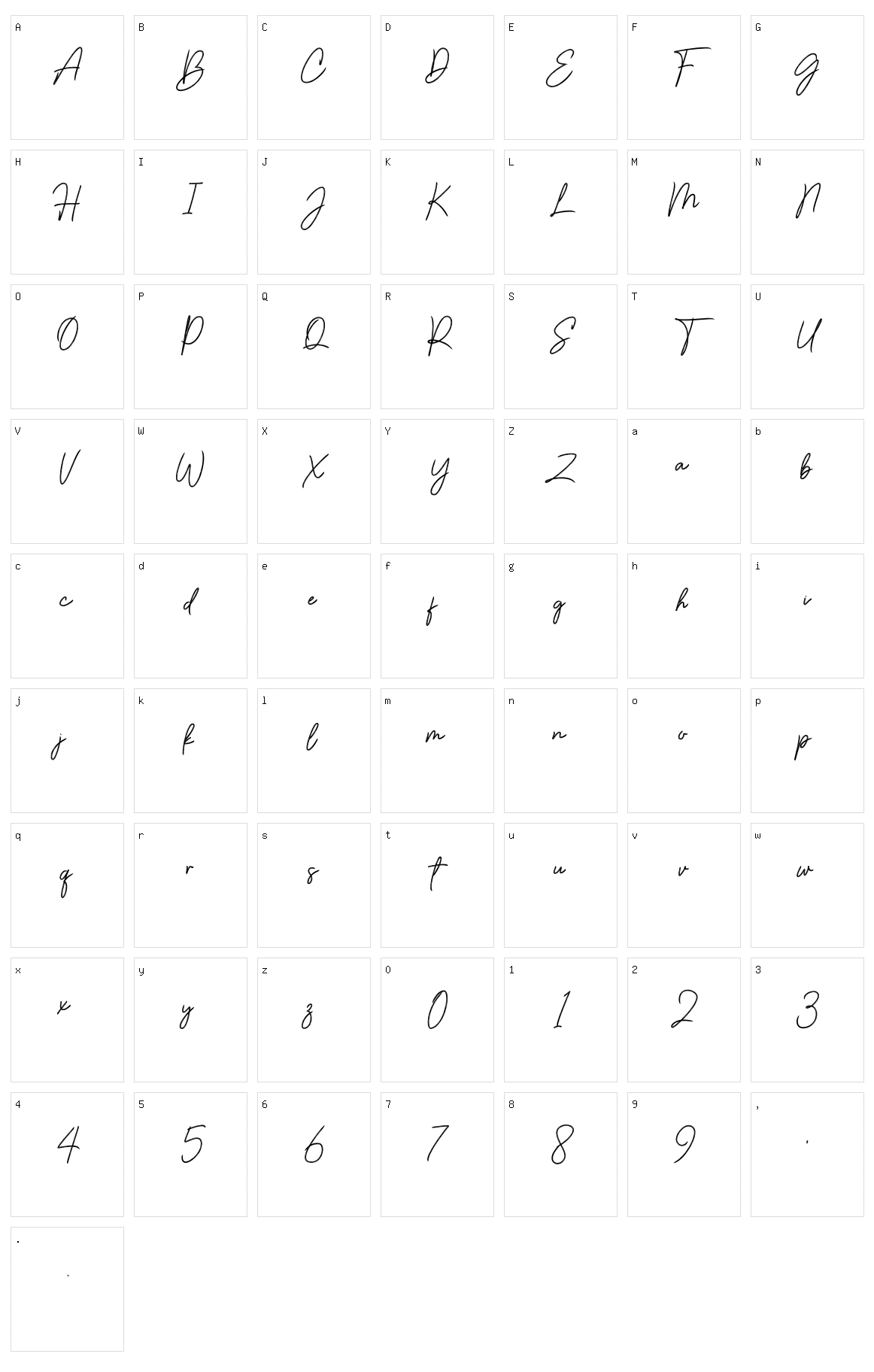
The free font Bettany Script is carefully designed by Bale, showcasing a thoughtful balance of creativity and usability and falls under the Script font style. When you download the ZIP file, it contains only 136.54 KB of font files, making it lightweight and quick to download. Please review the license details below to understand permitted usage and distribution rights. If license information is not available, we recommend using this font for personal projects only or contacting the author directly for commercial usage permissions.